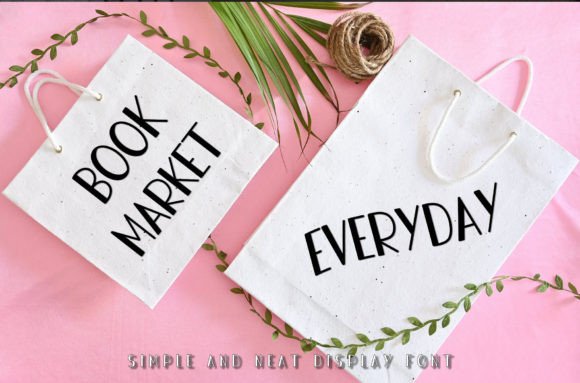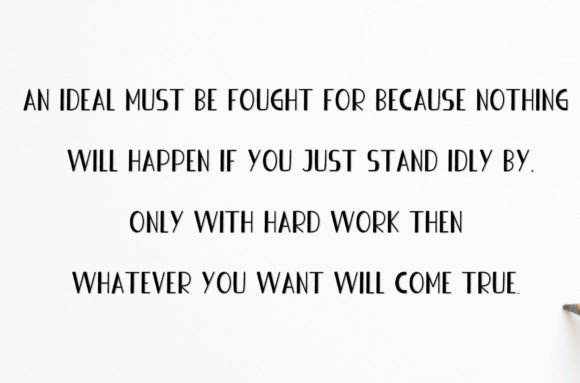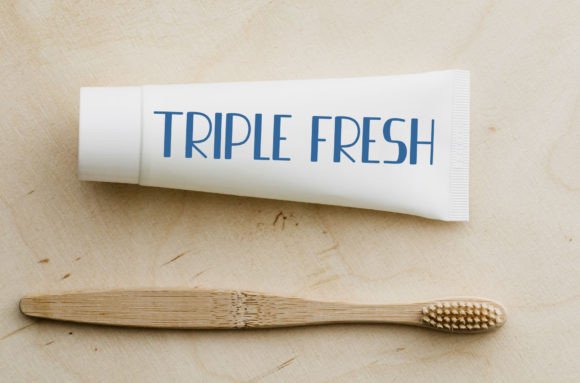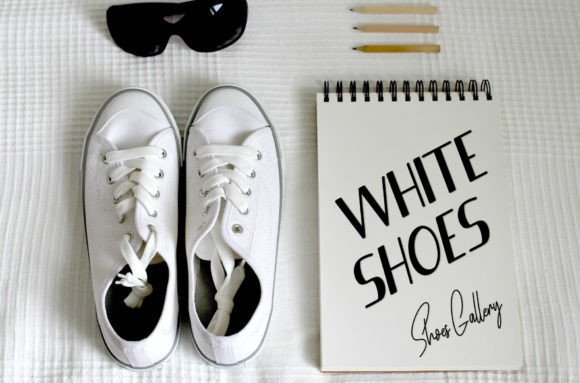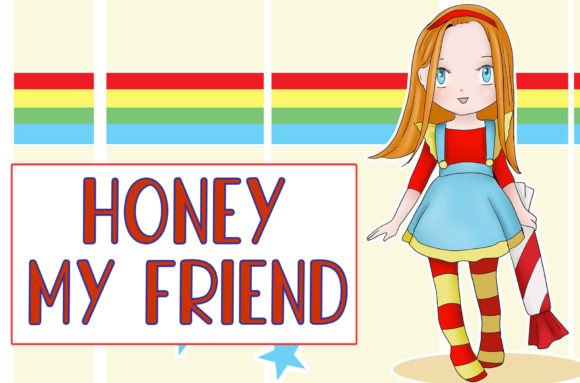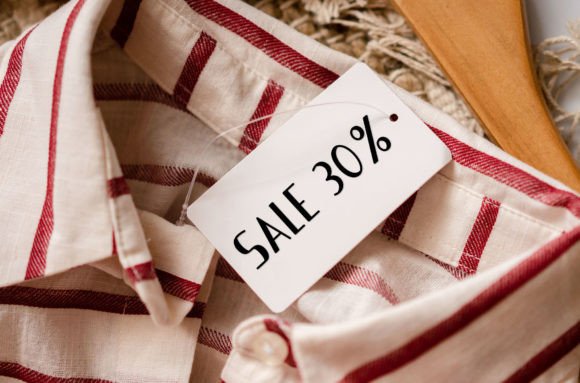
Introduction to Consumer Font
Do you remember the moment when you finally found the perfect font to match your creative vision? It’s that instant rush of excitement when everything falls into place, and your design starts to take shape. For many designers, this moment is a result of discovering the right font – one that perfectly captures the essence of their project. In this article, we’ll explore the Consumer Font, a delightful and charming handwritten font that’s sure to bring a smile to your face.
As a valuable design resource, the Consumer Font is ideal for creating high-quality, unique, and eye-catching designs. Its friendly and approachable nature makes it perfect for wedding invitations, cards, and other creative projects that require a fun and personal touch. Whether you’re a seasoned designer or just starting out, the Consumer Font is a must-have in your design arsenal.
- High-quality design for creative projects, including advertisements, logos, and branding materials.
- Features a large character set, including uppercase and lowercase letters, numbers, and special characters.
- Designed to be highly legible at various resolutions, including 72 dpi and 300 dpi.
- Includes a scalable size range, allowing for easy adjustment to suit different design requirements.
Honest Review: Consumer Font
I recently had the chance to try out the Consumer Font and I must say it’s a solid addition to any designer’s toolkit. The font is clean, modern, and perfect for creative projects that require a touch of sophistication.
- ✨ Clean and modern design
- ✨ Versatile and suitable for a wide range of creative projects
- ✨ High quality and transparent background
- ⚠️ Limited character set and font sizes available
- ⚠️ Not ideal for use in large body text or headings
Overall, I’m impressed with the Consumer Font and would definitely recommend it to designers who are looking for a high-quality, modern font for their creative projects. Just be aware of its limitations and use it accordingly.
Tips for Getting the Most Out of Consumer Font
For the best results, use Consumer Font with a transparent background to give your design a clean and modern look. You can also experiment with different font sizes and styles to create a unique and creative design.
Consumer Font is a versatile font that can be used in a variety of creative projects, including logos, business cards, brochures, and social media graphics. Its high-quality design and transparent background make it a great choice for designers and non-designers alike.